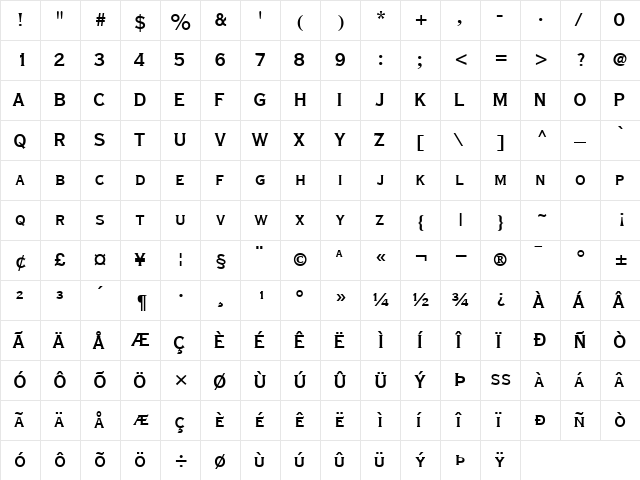
CopperplateExtraCondSCapsSSK Bold Font Preview
Design Context for CopperplateExtraCondSCapsSSK Typeface
CopperplateExtraCondSCapsSSK offers clean, dependable letterforms without strong stylistic allegiance, making it a practical choice for designers who need flexibility. The heavy weight commands attention and anchors typographic hierarchies. Its narrow stance lets it pack a punch even in space-constrained designs.